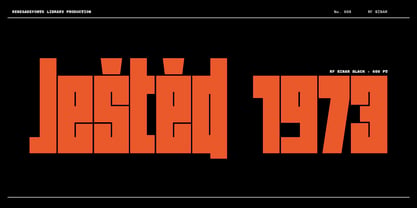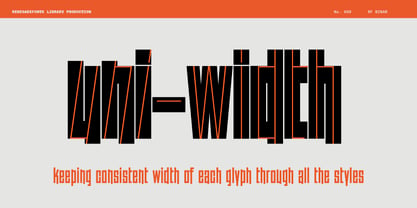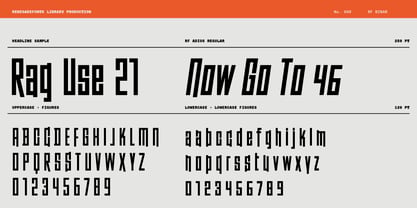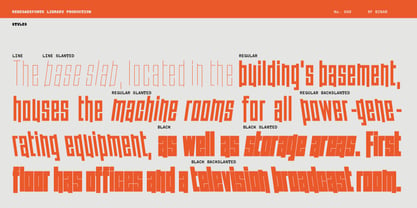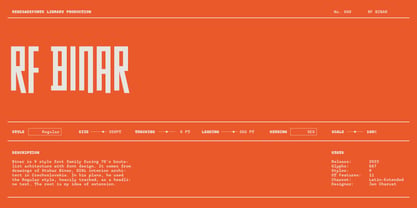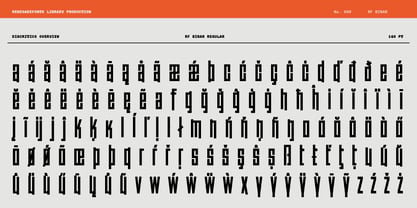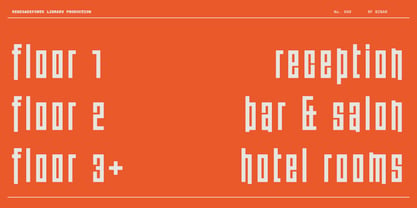
RF Binar
by Renegade Fonts
The RF Binar Font Family was designed by Jan Charvát and published by Renegade Fonts. RF Binar contains 9 styles and family package options. More about this family
Binar is 9 style font family fusing 70's brutalist achitecture with font design. It comes from drawings of Otakar Binar, SIAL interior architect in Czechoslovakia. In his plans, he used the Regular style, heavily tracked, as a headline text. The rest is my idea of extension – thin lines for extra fine design work or block heavy brutalist style for shout outs. The family is uni-width making it easy to swap between styles and use one on top of each other.
Designers: Jan Charvát
Foundry: Renegade Fonts
RF Binar